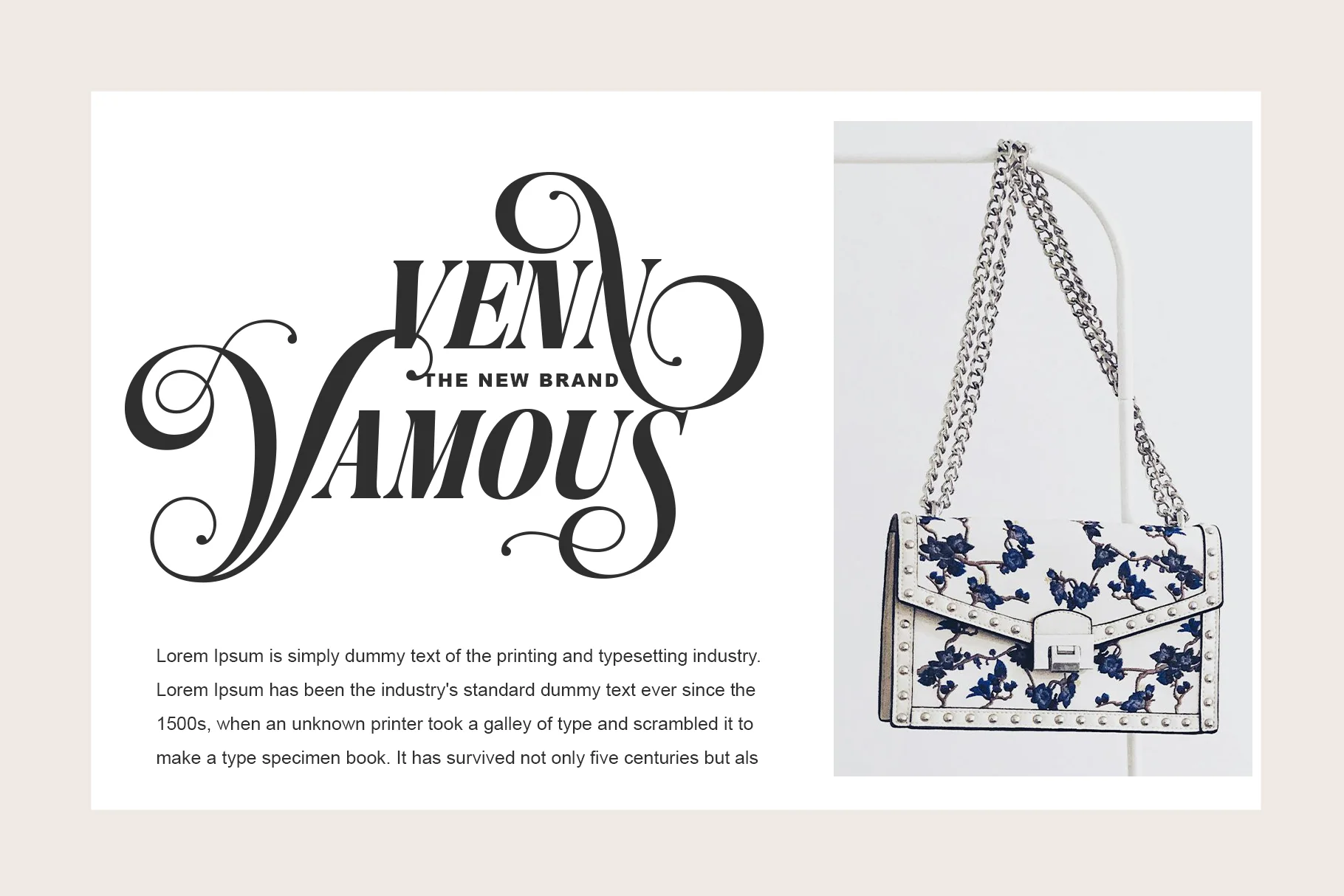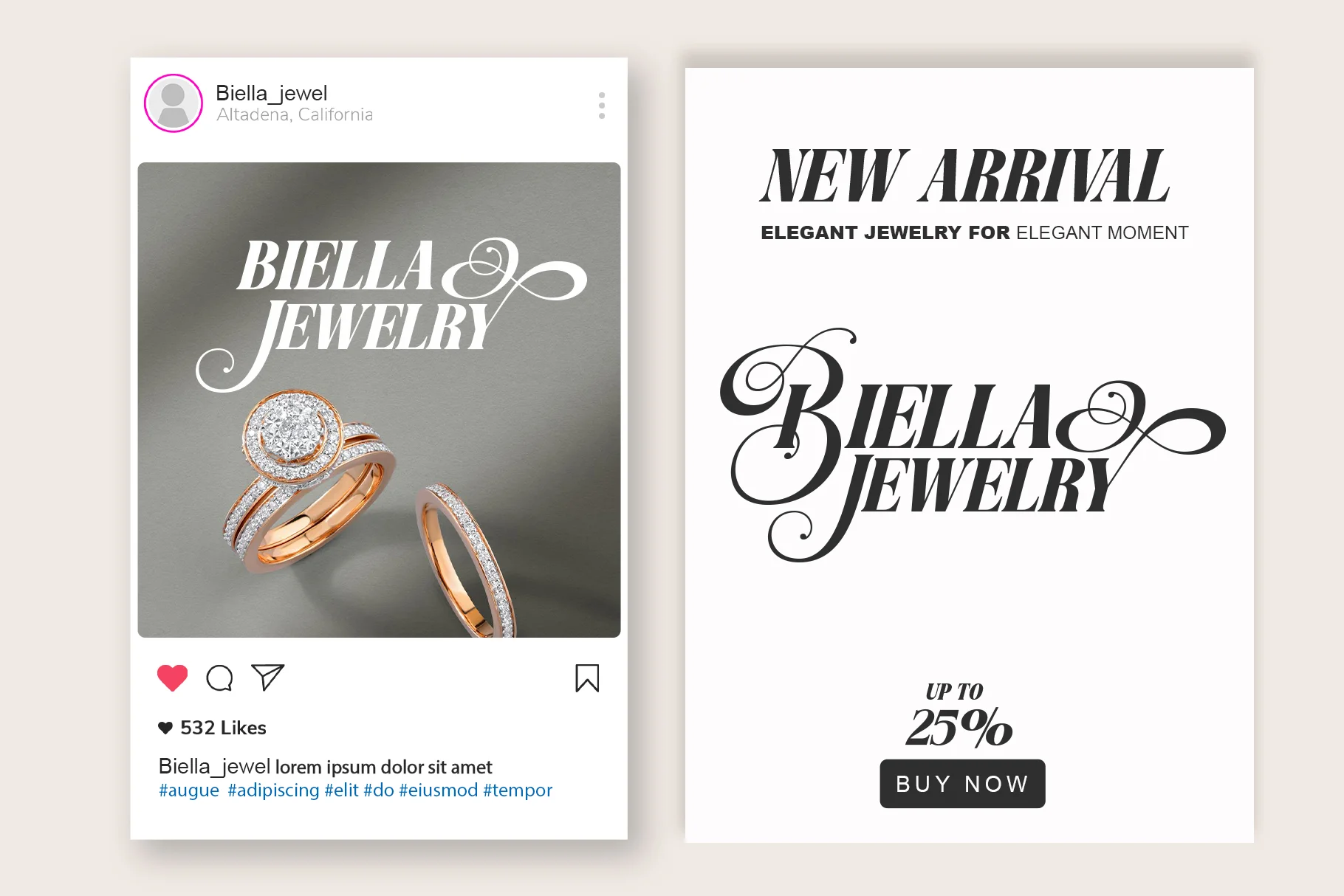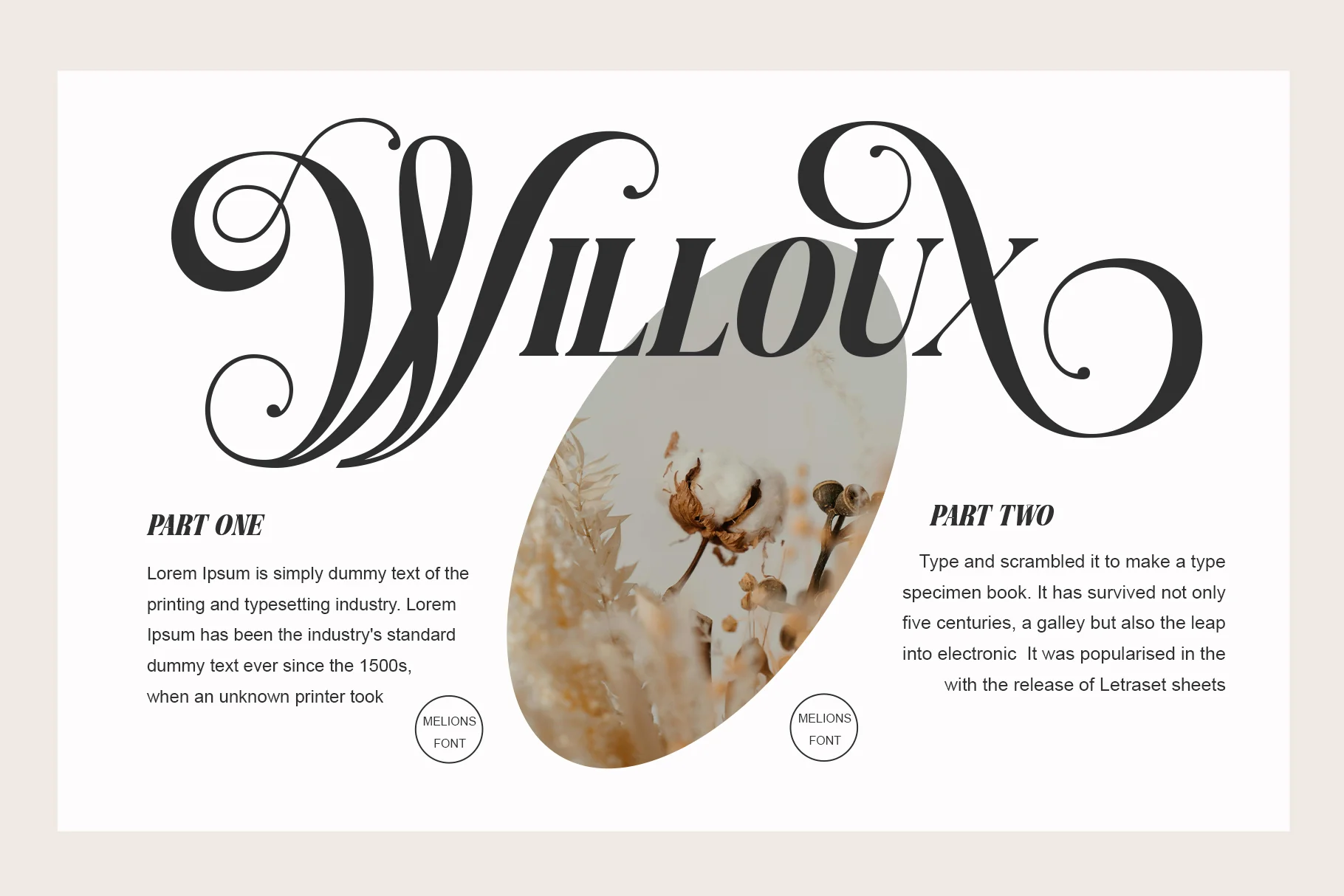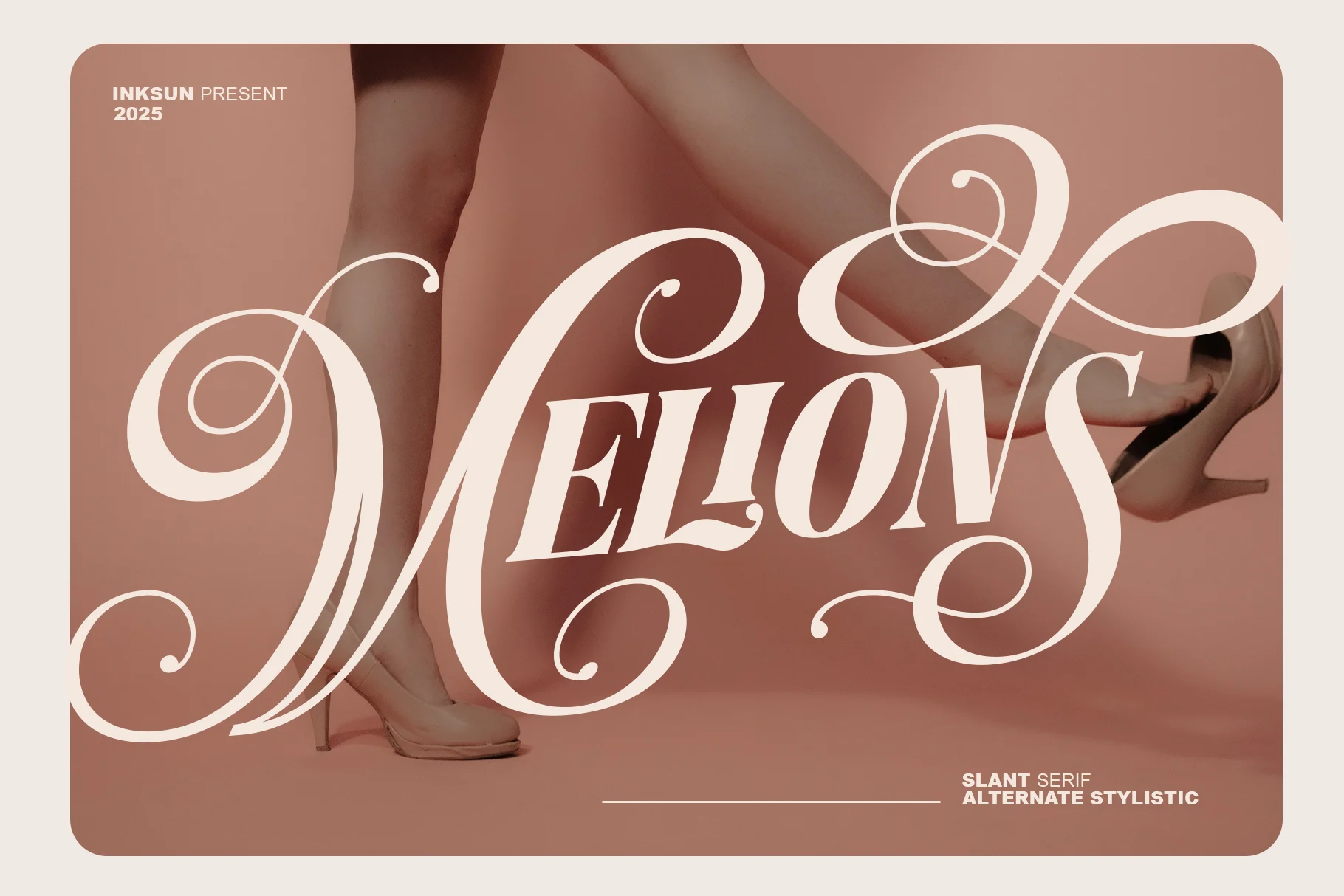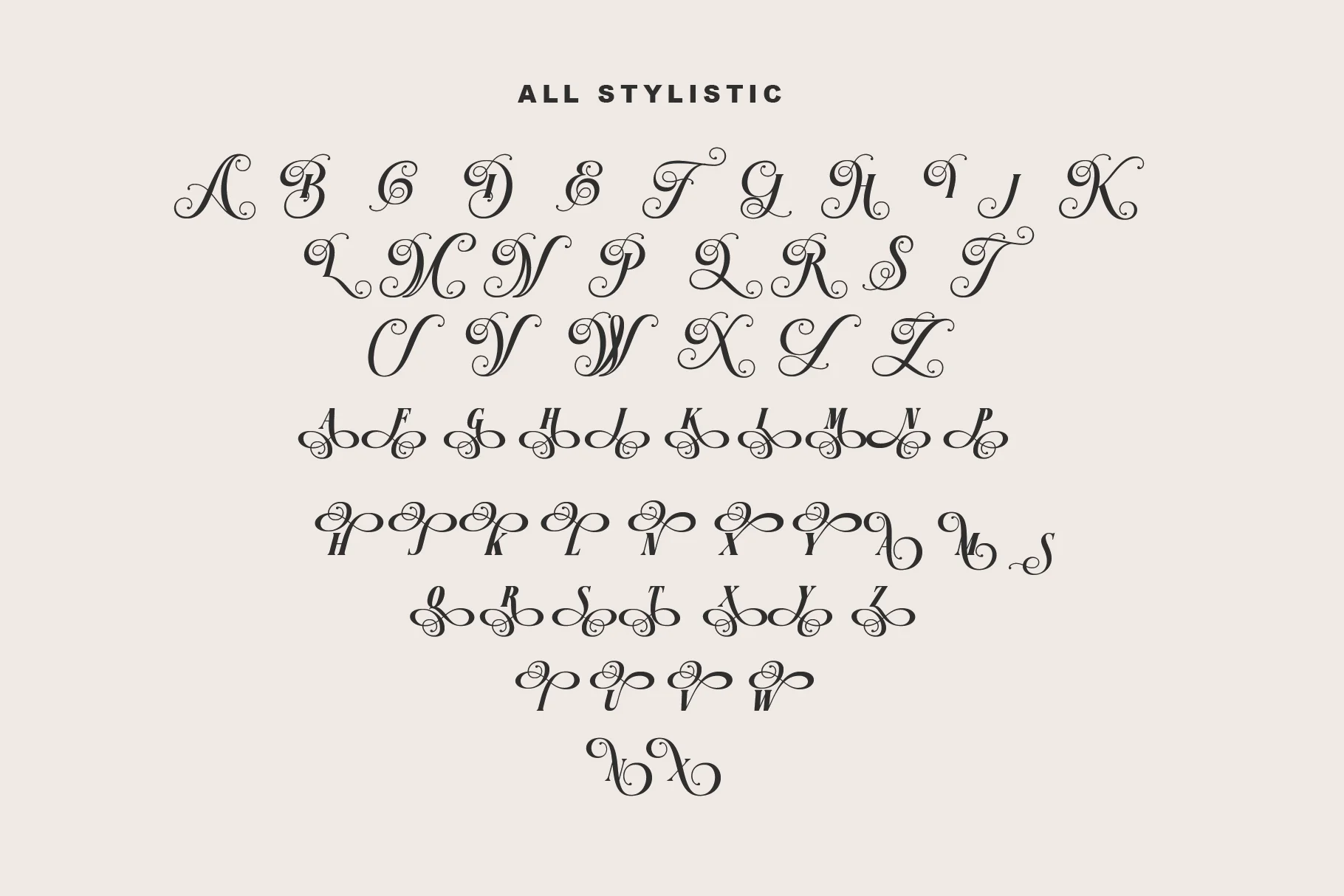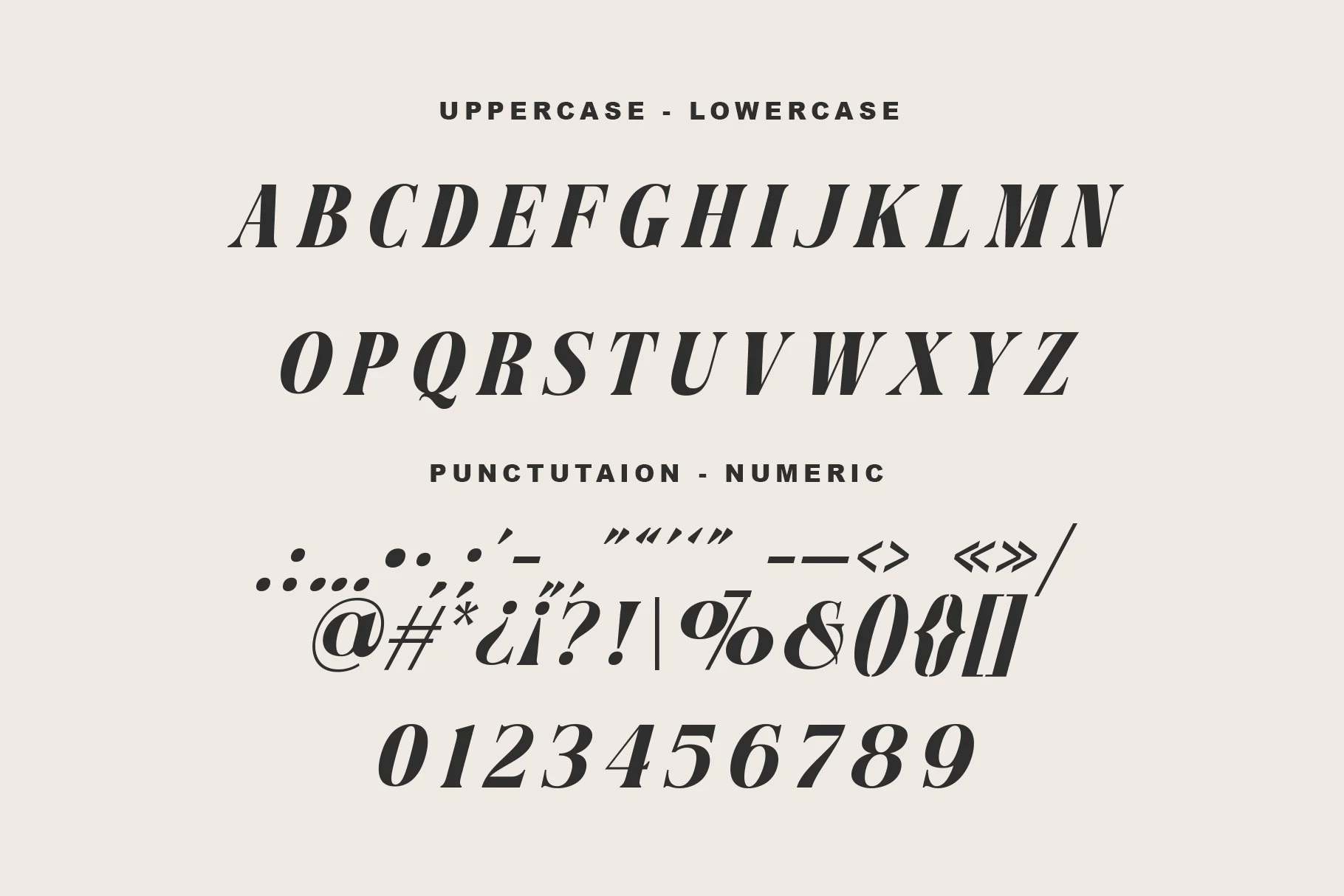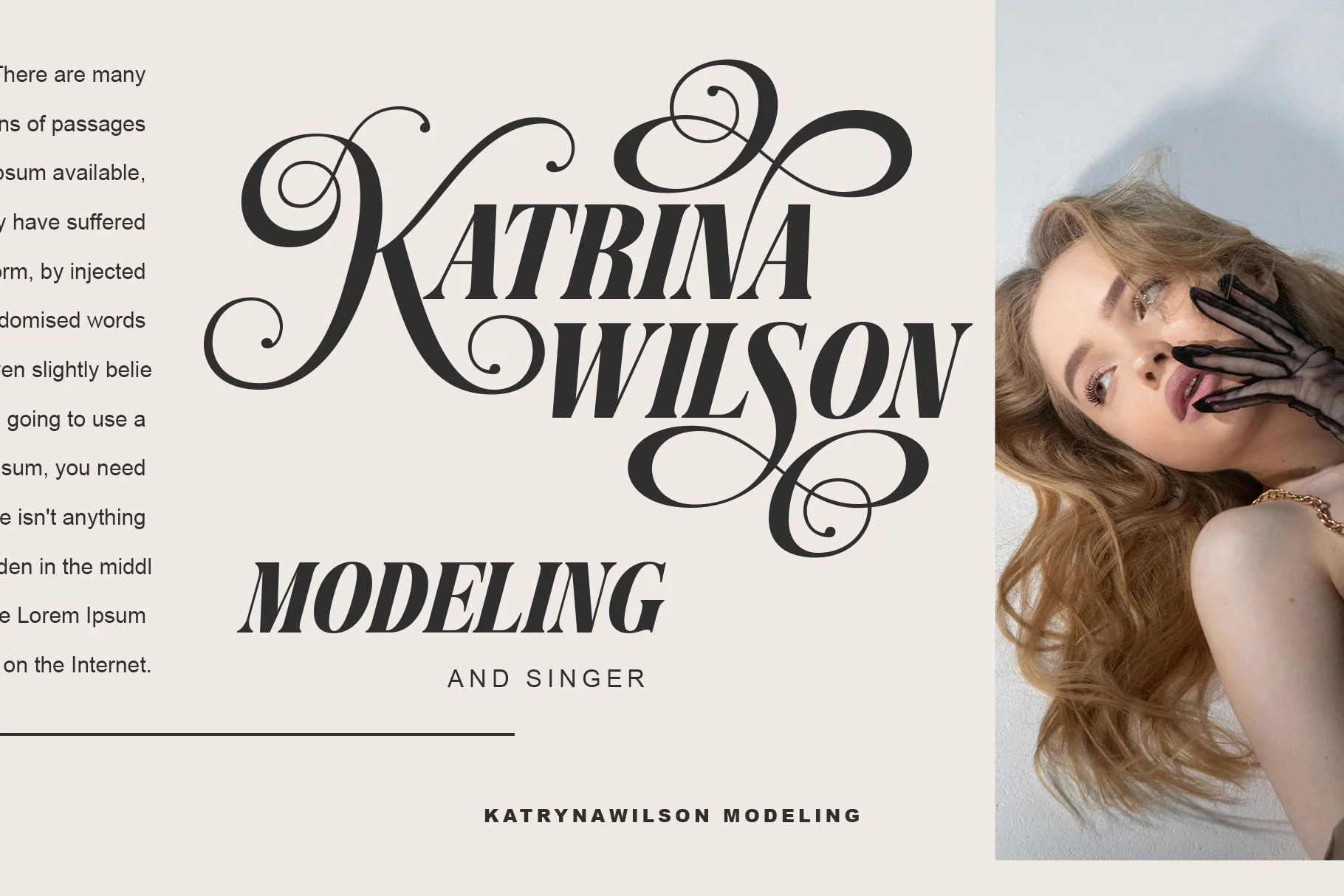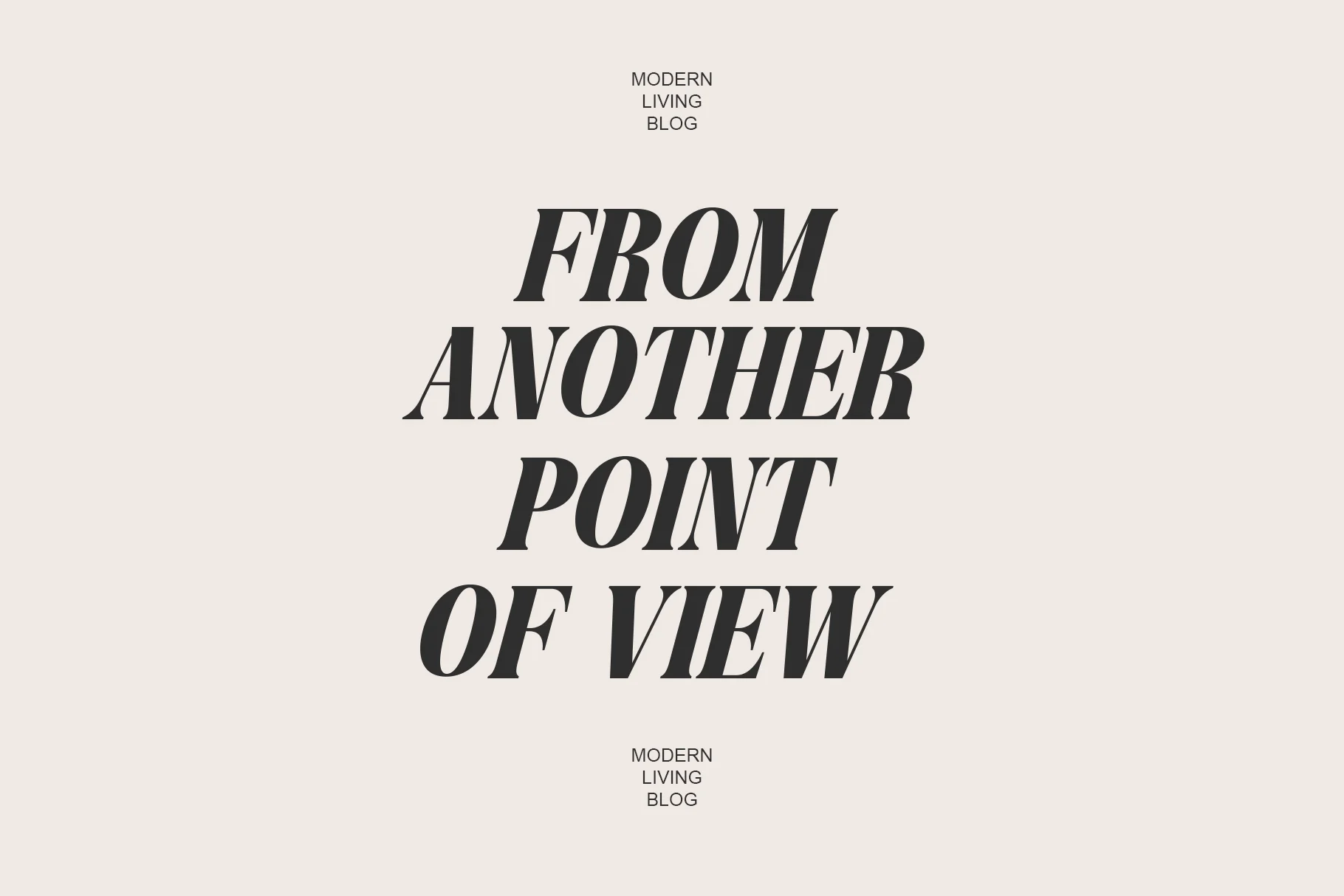
Melions
**Melions** Font features a very stylish and expressive italic serif style, with a luxurious and elegant feel. There is a strong thick-thin contrast, creating a very elegant classic look. The combination of modern serif structure with baroque decorative elements creates a balance between readability and high aesthetics. Perfect for luxury branding, magazine covers, cosmetic packaging, or elegant event promotions.
* Alternatives Characters
* Multilingual Support
* Alternates Stylistic